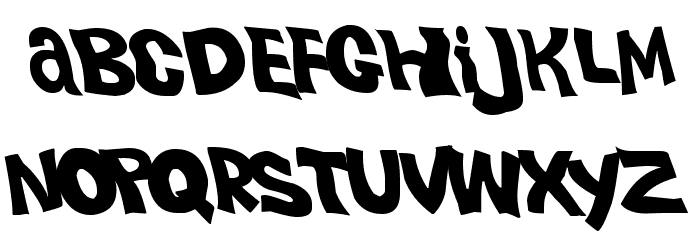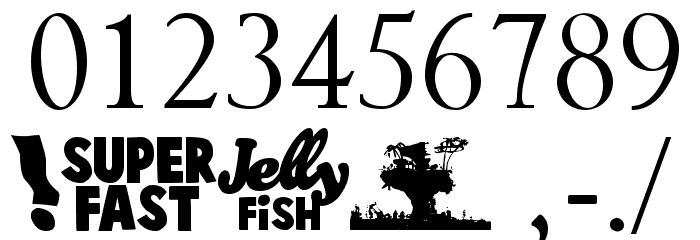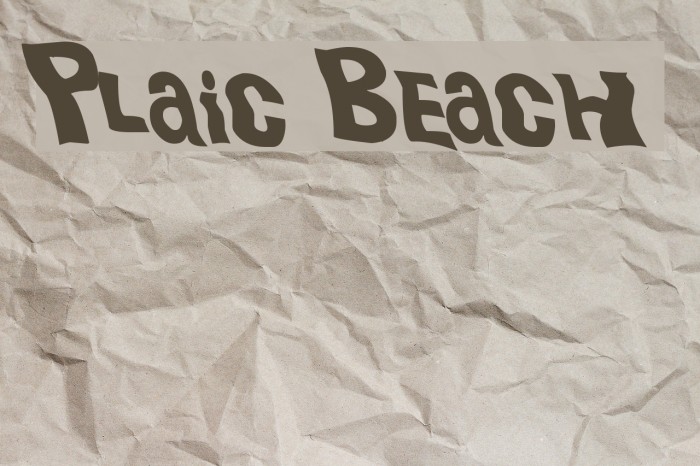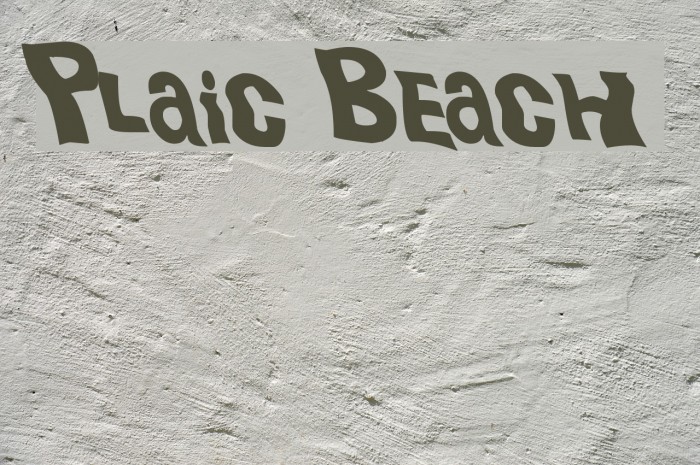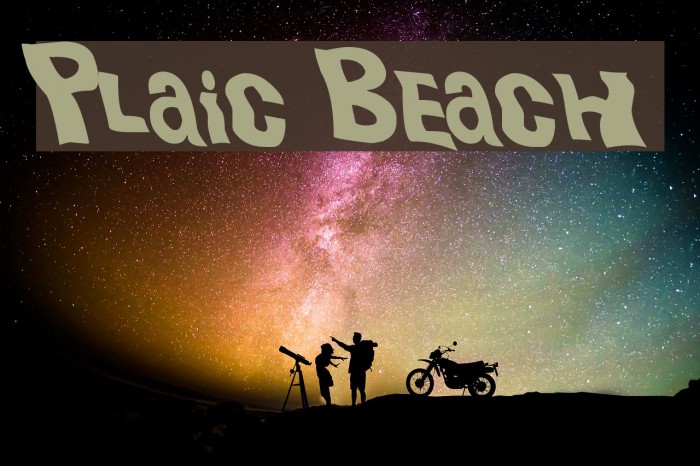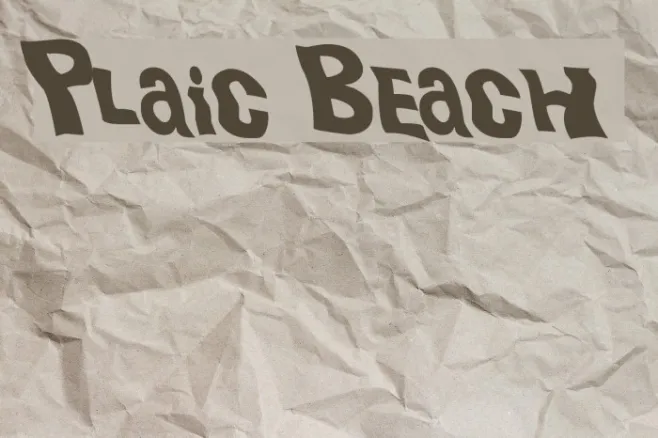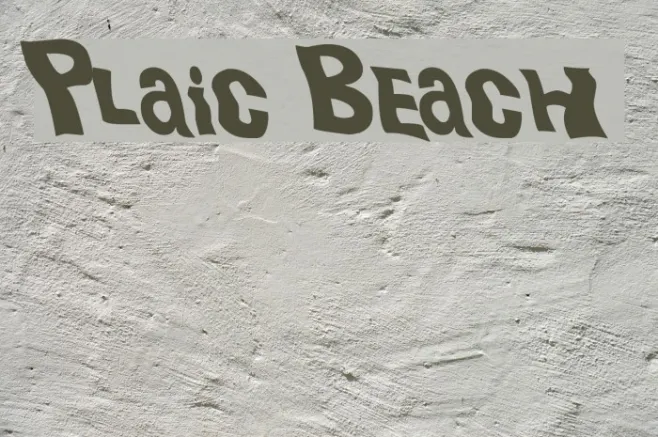
Plastic Beach Font
This font features a bold and playful style with exaggerated curves and a dynamic, energetic feel. The uppercase letters are particularly striking, with a sense of movement and rhythm that makes them stand out. The lowercase letters maintain the same playful character, while the numbers are more straightforward, providing a nice contrast. Special characters are creatively designed, adding to the font's unique personality. Overall, this font exudes a sense of fun and creativity, making it ideal for projects that require a lively and engaging visual impact.
A bold, playful font with dynamic curves and a lively style.
- Proposed Projects: Ideal for music album covers, children's book titles, posters, and branding for creative industries.
- Overall Style: Modern, Decorative